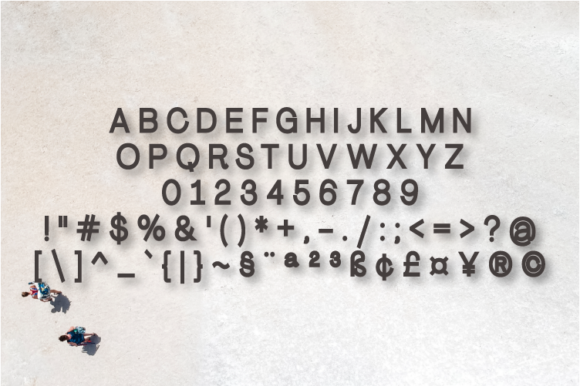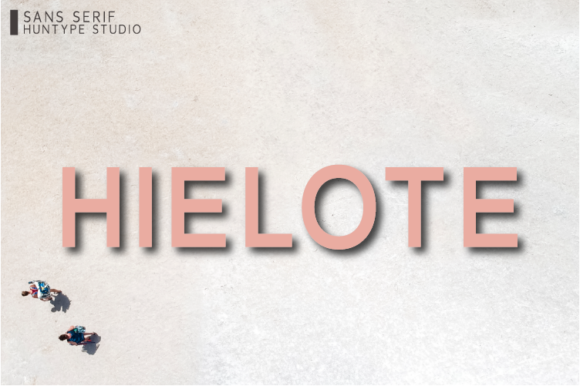
Introduction to Hielote Font
Hielote is a fancy, contemporary sans serif font.
In addition to its well-balanced weight distribution, it delivers a sophisticated feel which is further emphasized by the carefully adjusted alternates and ligatures .